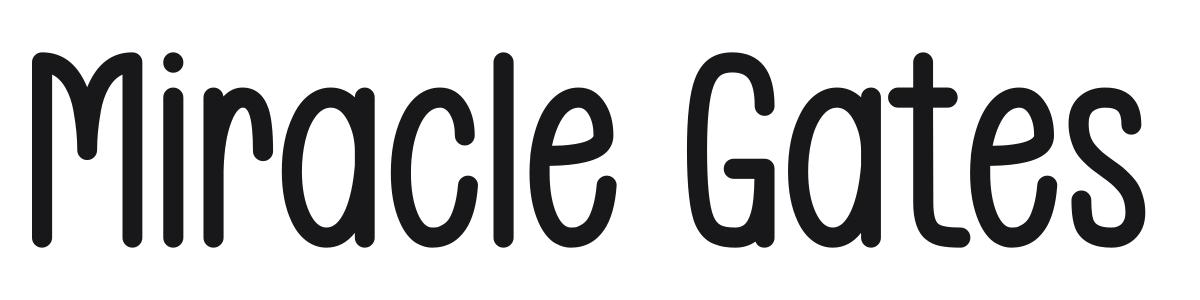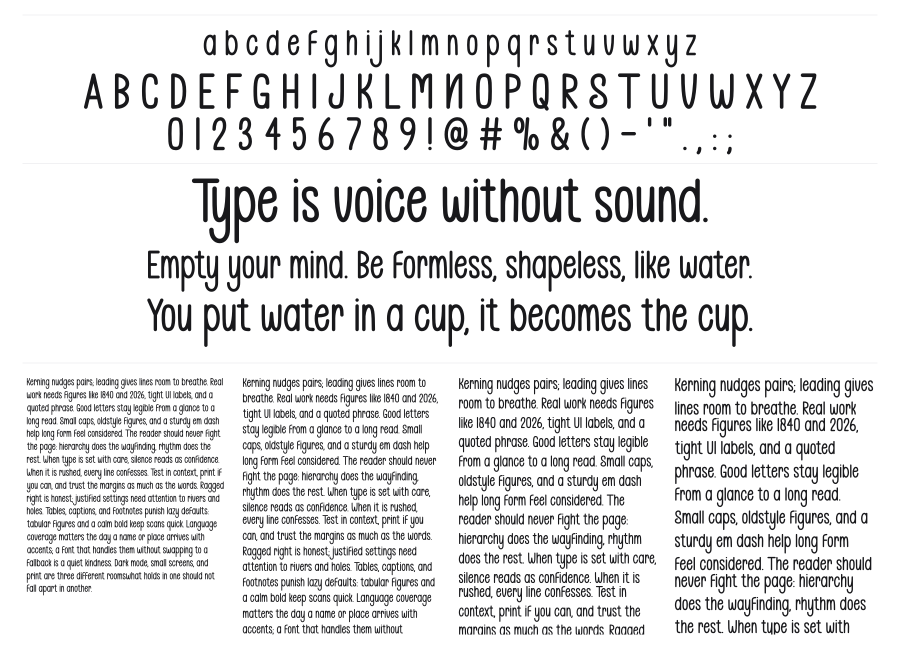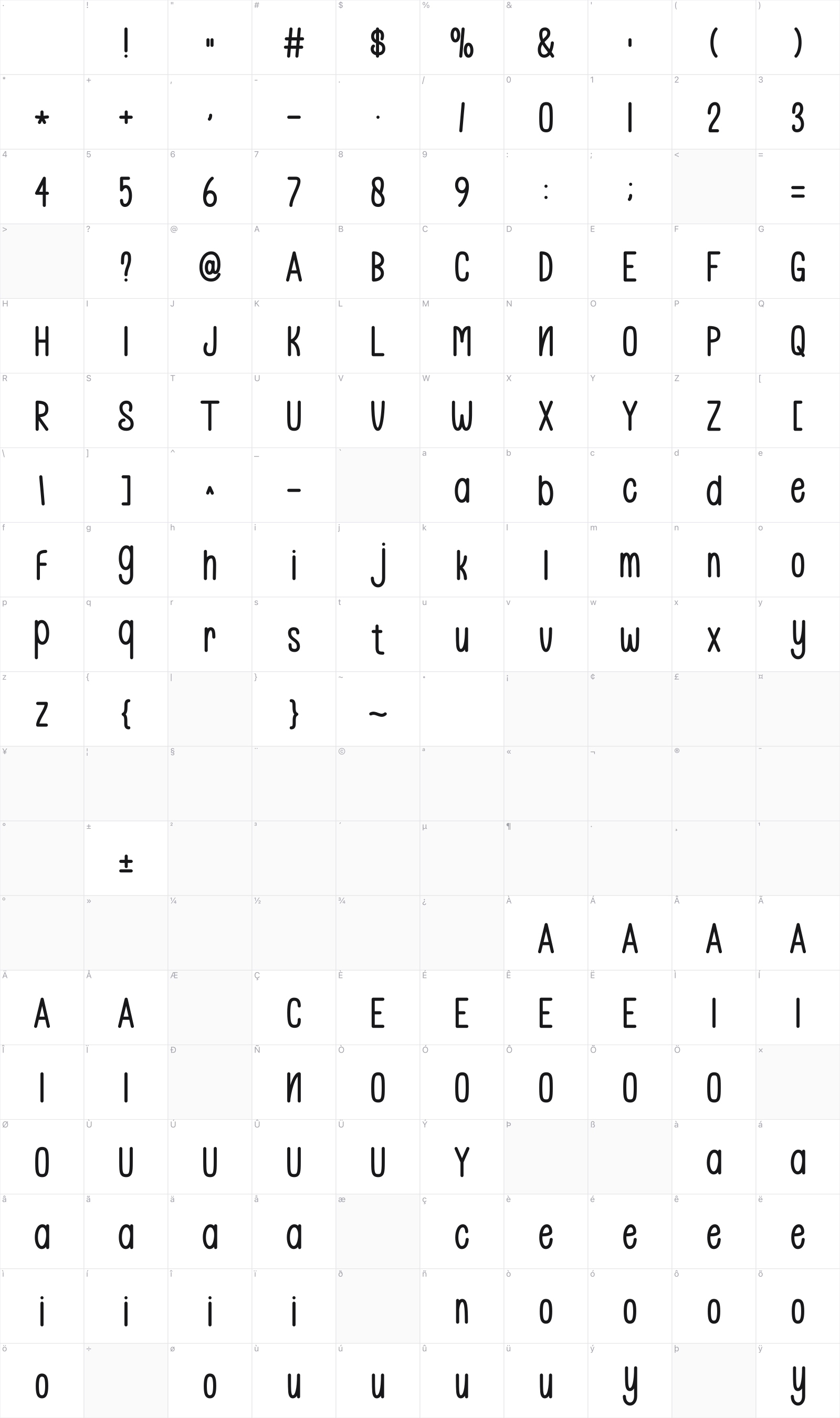
Miracle Gates
Miracle Gates is a rounded sans-serif with a warm, casual personality and near-monoweight strokes. Quirky details like looping descenders and inconsistent baseline bounces give it a handmade feel that keeps it from reading as generic. It works well in packaging, children's content, and any branding that wants to feel approachable.